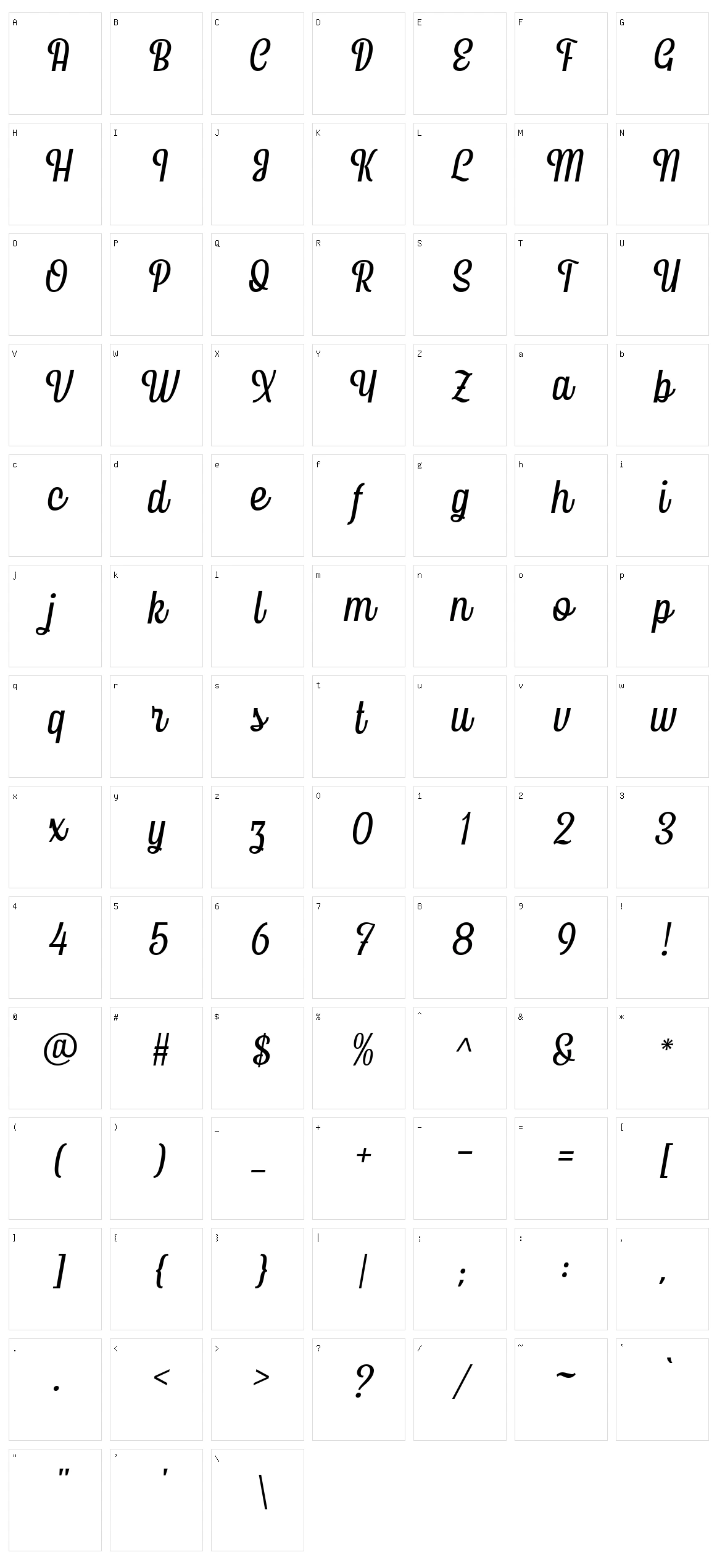
The free font Gendis Script is carefully designed by surotype, showcasing a thoughtful balance of creativity and usability and falls under the Old-School font style. When you download the ZIP file, it contains only 19.24 KB of font files, making it lightweight and quick to download. Please review the license details below to understand permitted usage and distribution rights. If license information is not available, we recommend using this font for personal projects only or contacting the author directly for commercial usage permissions.